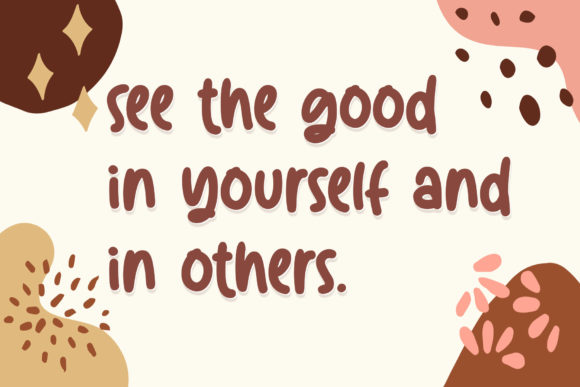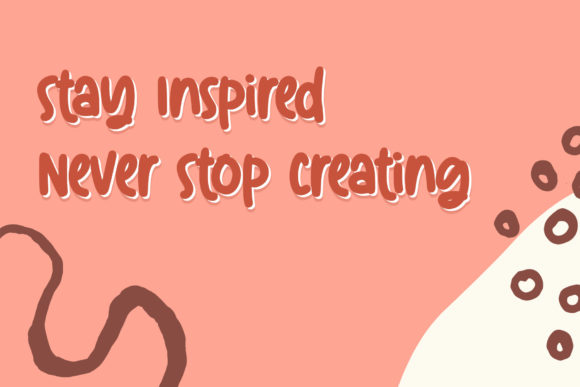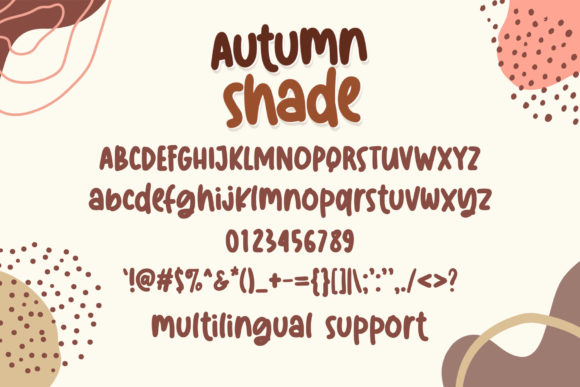
Introducing Autumn Shade Font: Elevate Your Design with a Playful Touch
Are you looking for a font that can add a dash of personality to your crafty design project? Look no further than the Autumn Shade Handwritten Font. This delightful font is designed to make your designs stand out with its playful and unique style, perfect for a wide range of applications.
The Perfect Blend of Playfulness and Elegance
The Autumn Shade Font is a beautifully crafted handwritten font that exudes a sense of playfulness and elegance. Its unique lettering style is sure to capture the attention of your audience and leave a lasting impression. Whether you’re working on a DIY project, creating social media graphics, or designing marketing materials, this font is sure to elevate your design to the next level.
Why Choose Autumn Shade Font?
- Unique and Playful Style: The Autumn Shade Font boasts a distinctive and playful style that will set your design apart from the rest.
- Versatile: This font is suitable for a wide range of applications, from crafting and DIY projects to social media graphics and marketing materials.
- High-Quality: This font is designed with high-quality and clarity in mind, ensuring that your design looks professional and polished.
Design Ideas with Autumn Shade Font
The Autumn Shade Font is incredibly versatile, and can be used in a variety of design projects. Here are a few ideas to get you started:
- Crafting and DIY Projects: Use the Autumn Shade Font to add a personal touch to your crafting and DIY projects, such as handmade cards, gift tags, and scrapbooking.
- Social Media Graphics: Add a playful touch to your social media graphics, such as Facebook posts, Instagram stories, and Pinterest pins.
- Marketing Materials: Use the Autumn Shade Font to create eye-catching marketing materials, such as brochures, flyers, and business cards.
- Wedding and Party Decor: Add a touch of elegance and whimsy to your wedding and party decor with the Autumn Shade Font.
Tips for Pairing Autumn Shade Font with Other Design Elements
To get the most out of the Autumn Shade Font, try pairing it with other design elements, such as:
- Colorful Illustrations: Pair the Autumn Shade Font with colorful illustrations to create a playful and eye-catching design.
- Photos: Combine the Autumn Shade Font with photos to add a personal touch to your design.
- Shapes and Patterns: Use the Autumn Shade Font with shapes and patterns to create a visually interesting design.
The Autumn Shade Handwritten Font is a unique and playful font that is perfect for designers and crafters looking to add a dash of personality to their design projects. With its versatile style and ease of use, this font is sure to become a favorite in your design toolkit. So why wait? Download the Autumn Shade Font today and start creating stunning designs that will leave a lasting impression.